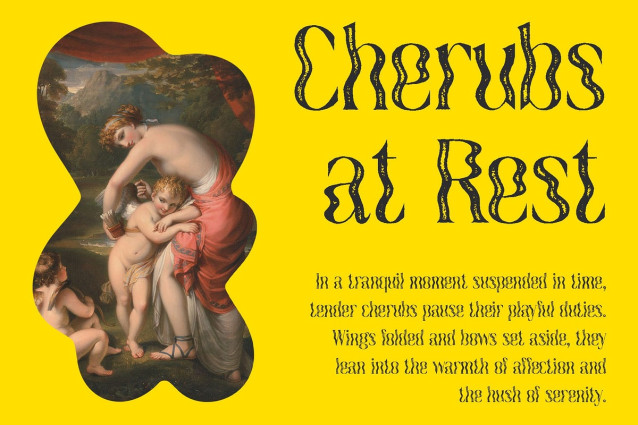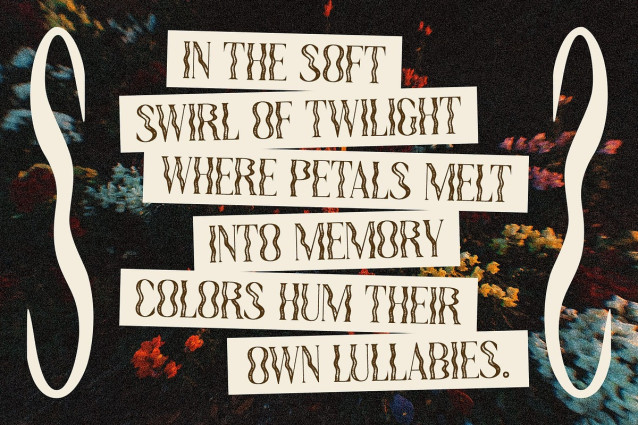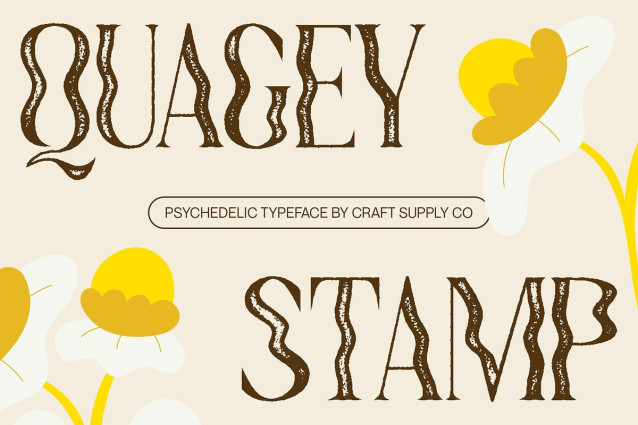
Quagey Stamp Font
Quagey Stamp Font is a psychedelic display font that combines bold, funky curves with a striking stamp-textured finish, delivering a powerful blend of retro personality and expressive visual appeal. Its warped, fluid letterforms dance with movement, echoing the spirit of 1960s and 1970s psychedelic art while infusing a gritty, handcrafted authenticity through its stamped look.
Expressive Style with a Retro Edge Designed for maximum character, Quagey Stamp exudes a sense of raw creativity and vibrant rebellion. The irregular outlines and rough stamp texture lend it a tactile, almost screen-printed quality, making it feel alive and imperfect in all the right ways.
Ideal for Artistic and Impactful Designs Whether you’re working on music posters, retro fashion branding, album artwork, festival visuals, or creative editorials, Quagey Stamp is your go-to for designs that demand attention. Its unique balance of nostalgia and edge gives any composition a loud, expressive, and artistic tone, ideal for those looking to evoke both emotion and style.
A Voice for Creative Freedom Quagey Stamp is more than just a font—it’s a statement of individuality and imagination. With its bold presence, funky rhythm, and gritty texture, it allows designers to push boundaries and explore new visual dimensions in their work. It’s tailored for creatives who want to break the mold and deliver something truly memorable.